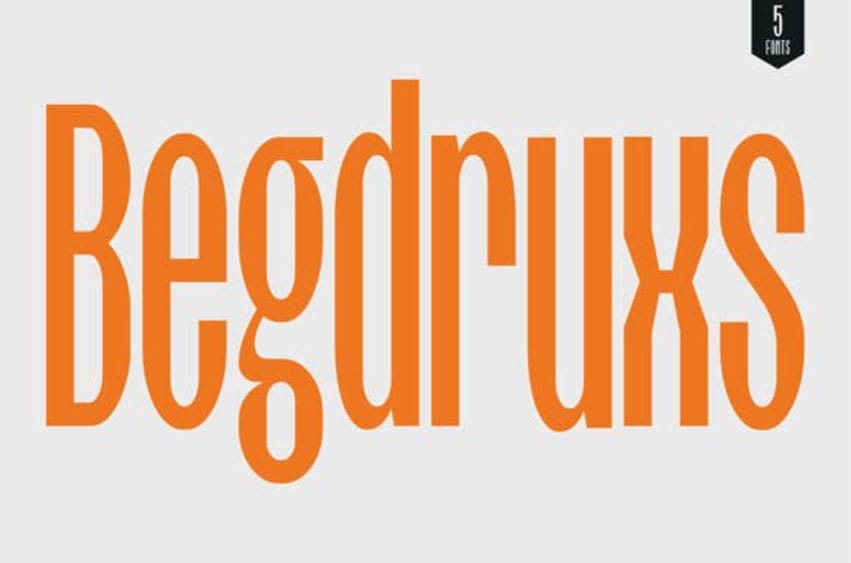
Begdruxs Font Condensed Sans Serif is a versatile and contemporary typeface distinguished by its narrow and sleek letterforms.
This font family includes 5 unique styles that amplify its versatility and design power. Ideal for editorial design, tech branding, experimental posters, and sleek logo work, Begdruxs combines clean lines with unconventional character shapes to make a strong visual impact. It’s a fantastic choice for creatives seeking a sharp, standout look with a modernist edge. Whether in fashion, digital products, or high-end packaging, Begdruxs speaks with clarity and confidence.
Designed for space-efficient layouts, it delivers a clean, stylish, and highly readable appearance perfect for both modern branding and professional design projects.
This font family includes 5 styles, ranging from Thin to Bold, providing excellent flexibility for diverse design applications.